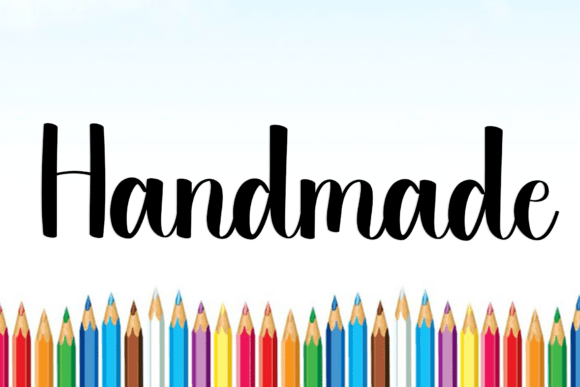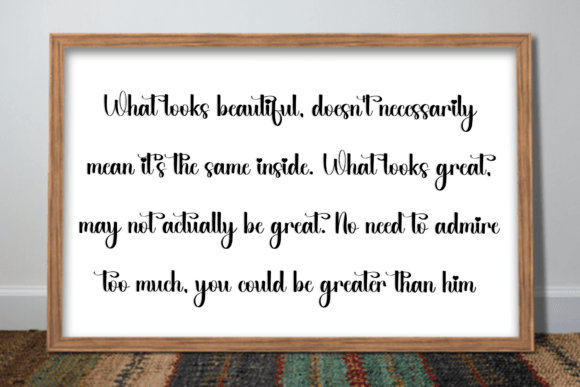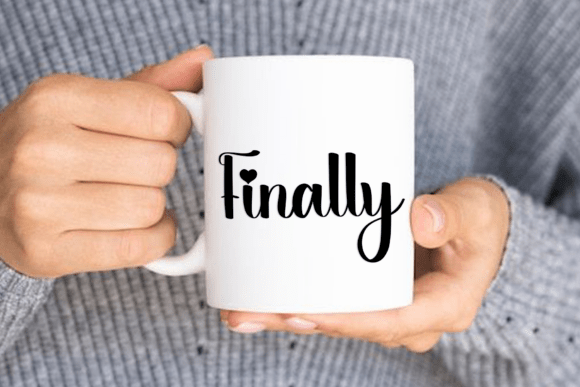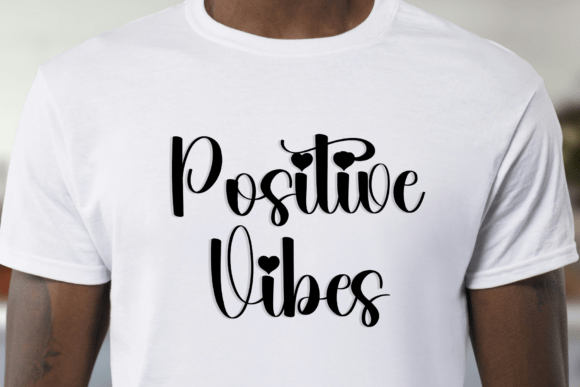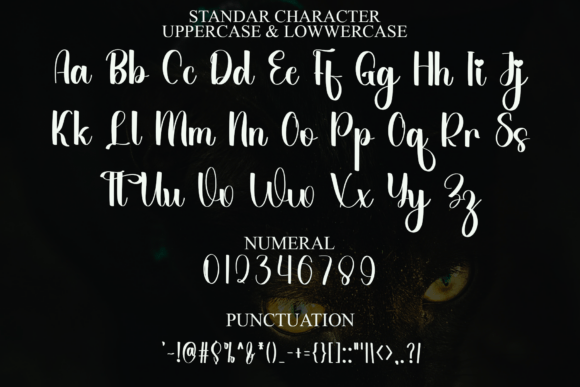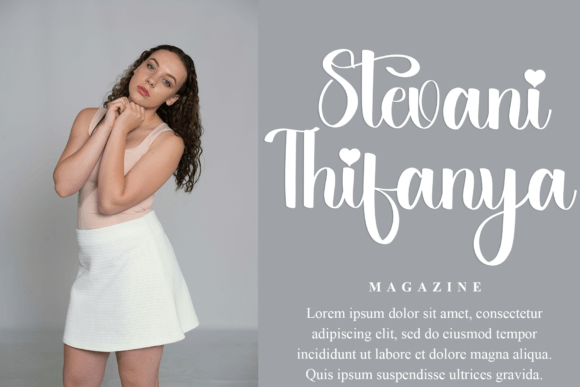
Introduction to Golden Christmas Font
As you sit by the fireplace, sipping hot cocoa and scrolling through social media, you stumble upon the perfect design for your holiday party invitation. The Golden Christmas Font catches your eye with its playful, hand-drawn aesthetic that screams warmth and friendliness. Its round, relaxed strokes create an instant sense of approachability, making it the perfect choice for personal projects, invitations, and social media graphics.
Key Features of Golden Christmas Font
- Unique, elegant design with a touch of luxury, perfect for creative projects and holiday-themed designs.
- Designed with a high level of detail, featuring intricate ornaments and festive elements.
- Perfect for creating invitations, greeting cards, and other holiday-themed materials with a touch of sophistication.
Honest Review: Golden Christmas Font
I recently had the chance to work with the Golden Christmas Font for a creative project and I must say it’s a lovely addition to any design. The font’s unique blend of elegance and playfulness makes it perfect for festive projects, from invitations to social media graphics.
- ✨ High-quality design: The font’s intricate details and ornate design elements are truly impressive.
- ⚠️ Limited customization options: While the font itself is beautiful, there are no customization options available to adjust the size, color, or spacing.
- ⚠️ Not suitable for body text: Due to its ornate nature, the font is better suited for headlines and titles rather than body text.
Overall, I’m impressed with the Golden Christmas Font’s potential for adding a touch of luxury and festivity to any design project. With a little creativity, you can create truly stunning graphics that will leave a lasting impression on your audience.
Getting the Most Out of the Golden Christmas Font
To maximize the potential of the Golden Christmas Font, experiment with different font sizes, styles, and colors. Use the font in combination with other design elements, such as images, graphics, or textures, to create visually appealing designs. Don’t be afraid to try out new and creative ways to use the font.
The Golden Christmas Font is perfect for creating festive and holiday-themed designs, such as Christmas cards, gift tags, or social media graphics. You can also use the font in other creative projects, like wedding invitations, birthday party decorations, or even greeting cards.